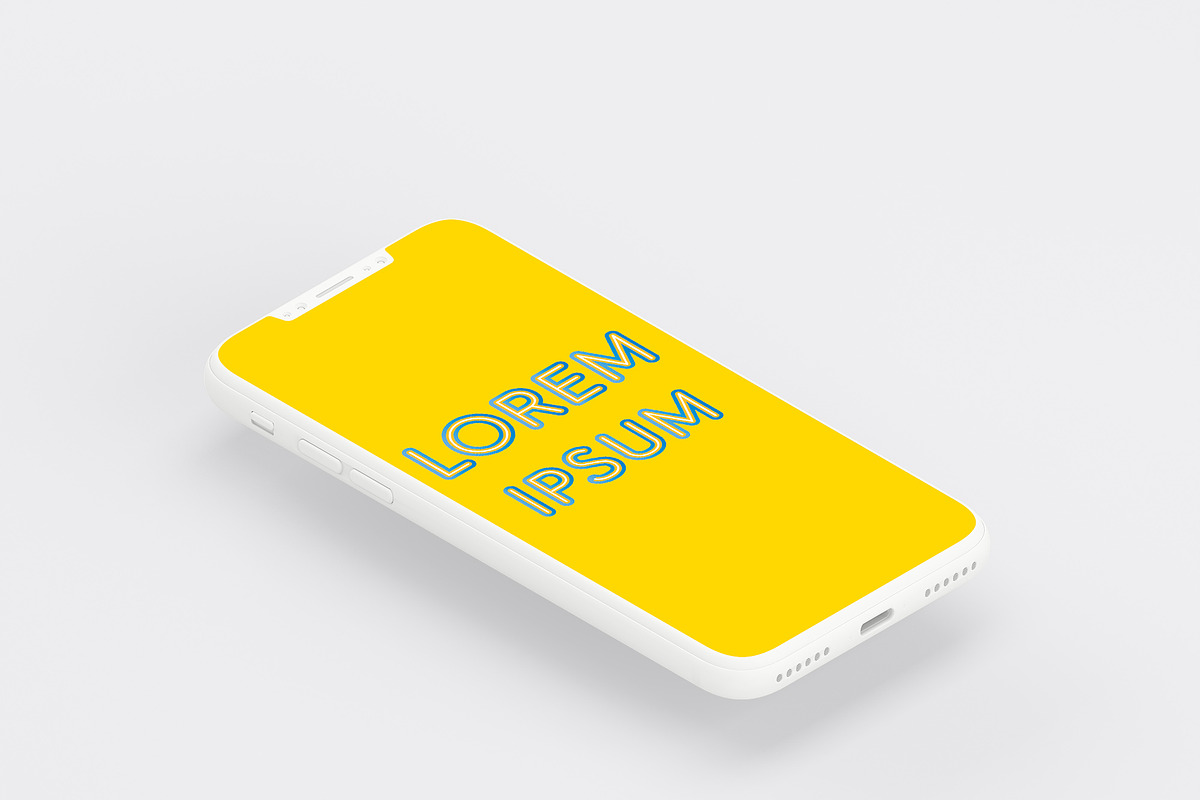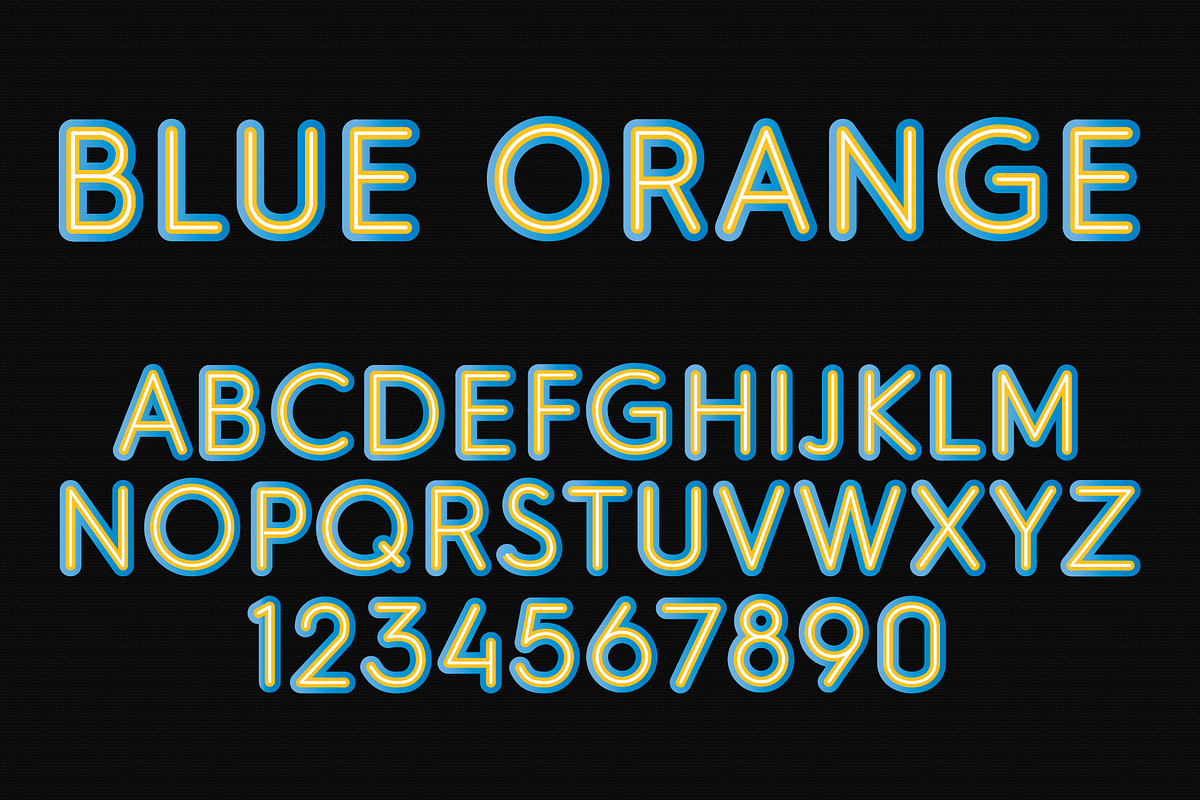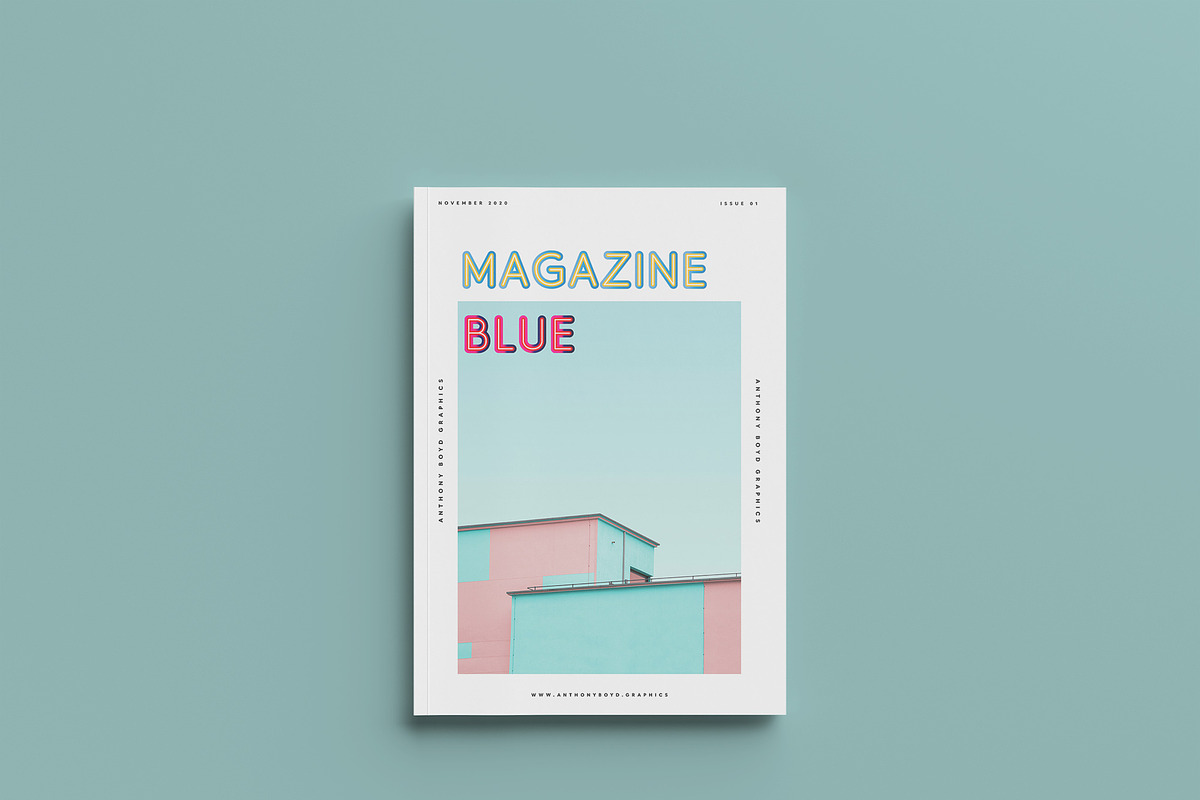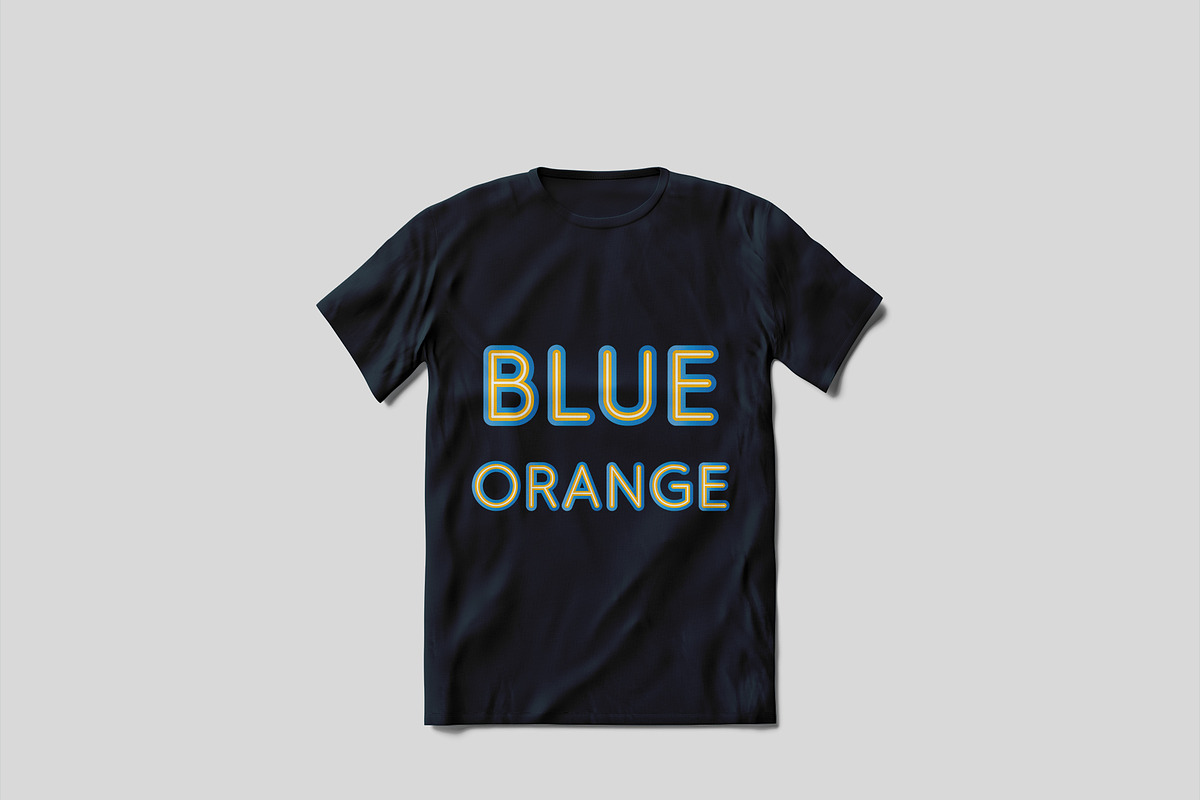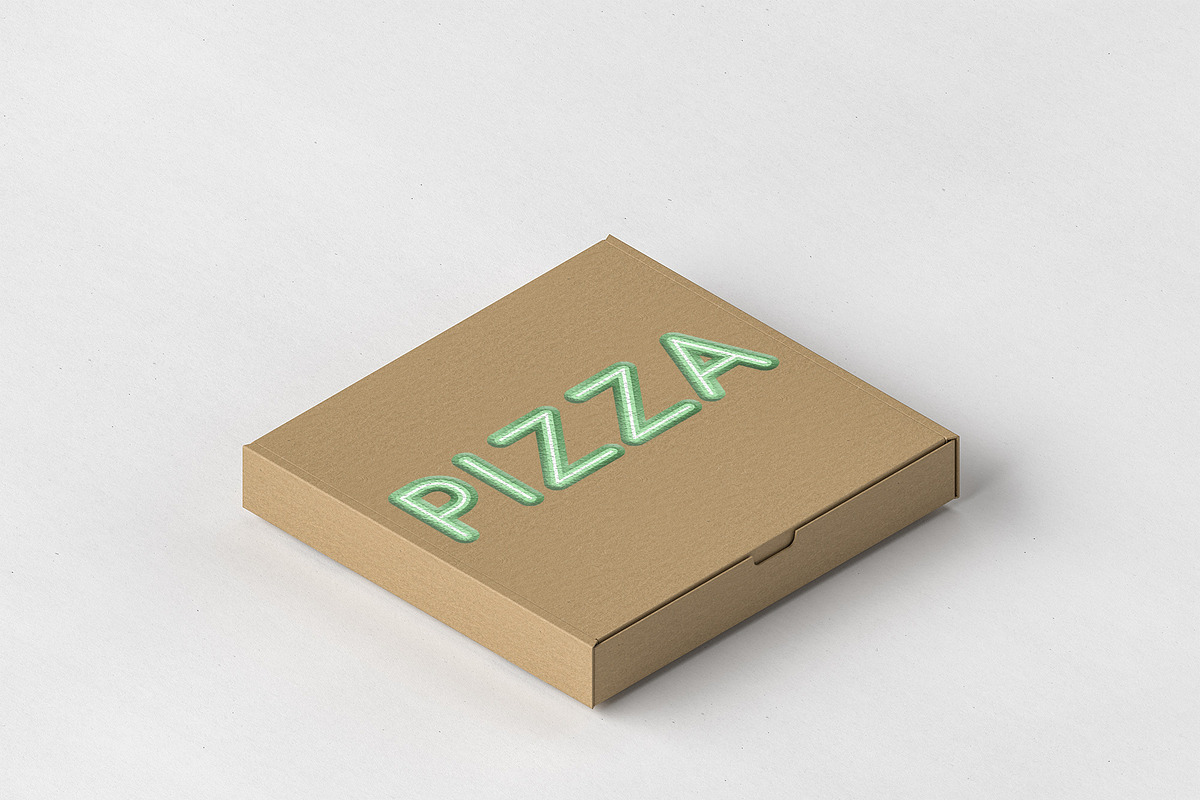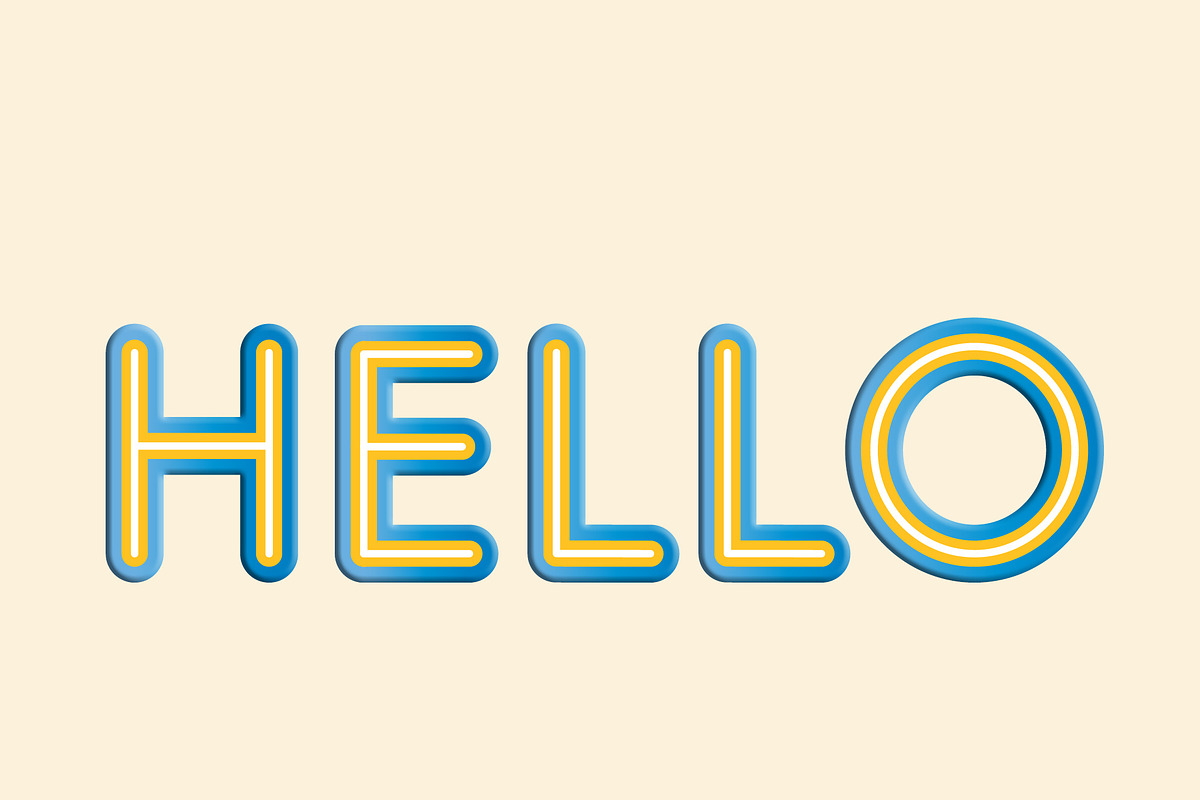
Blue Orange Color SVG Font
Blue Orange (SVG font) is a color sans serif.
Great for posters, logos, packaging, invitations, websites, T-Shirts and more.
Blue Orange Color SVG Font by vladocar fits naturally into Branding, posters, packaging, typography.